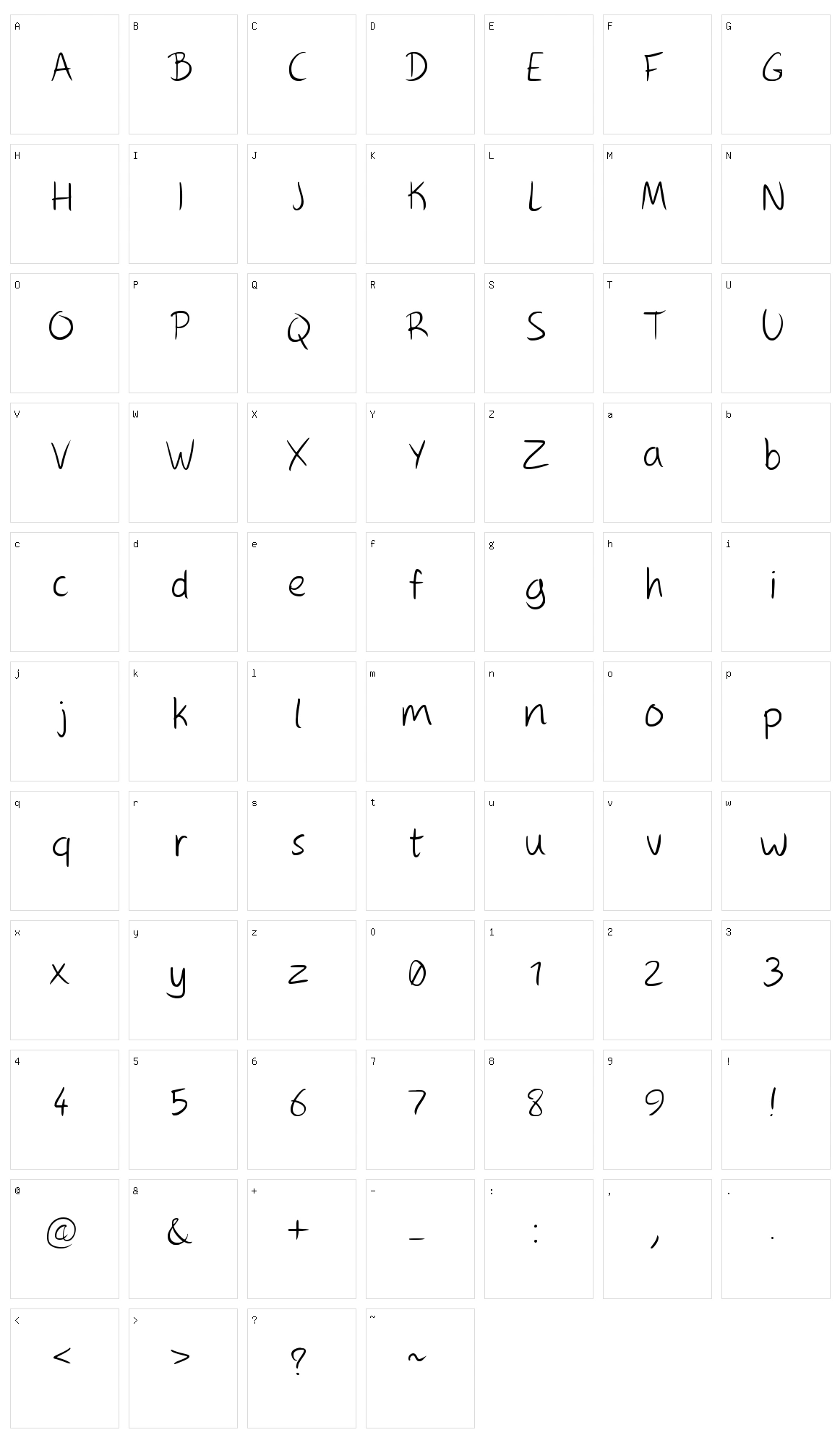
The free font Thank You is carefully designed by Brixdee, showcasing a thoughtful balance of creativity and usability and falls under the Script font style. When you download the ZIP file, it contains only 563.81 KB of font files, making it lightweight and quick to download. Please review the license details below to understand permitted usage and distribution rights. If license information is not available, we recommend using this font for personal projects only or contacting the author directly for commercial usage permissions.
This font "Thank You" is created by Francis Fonye.